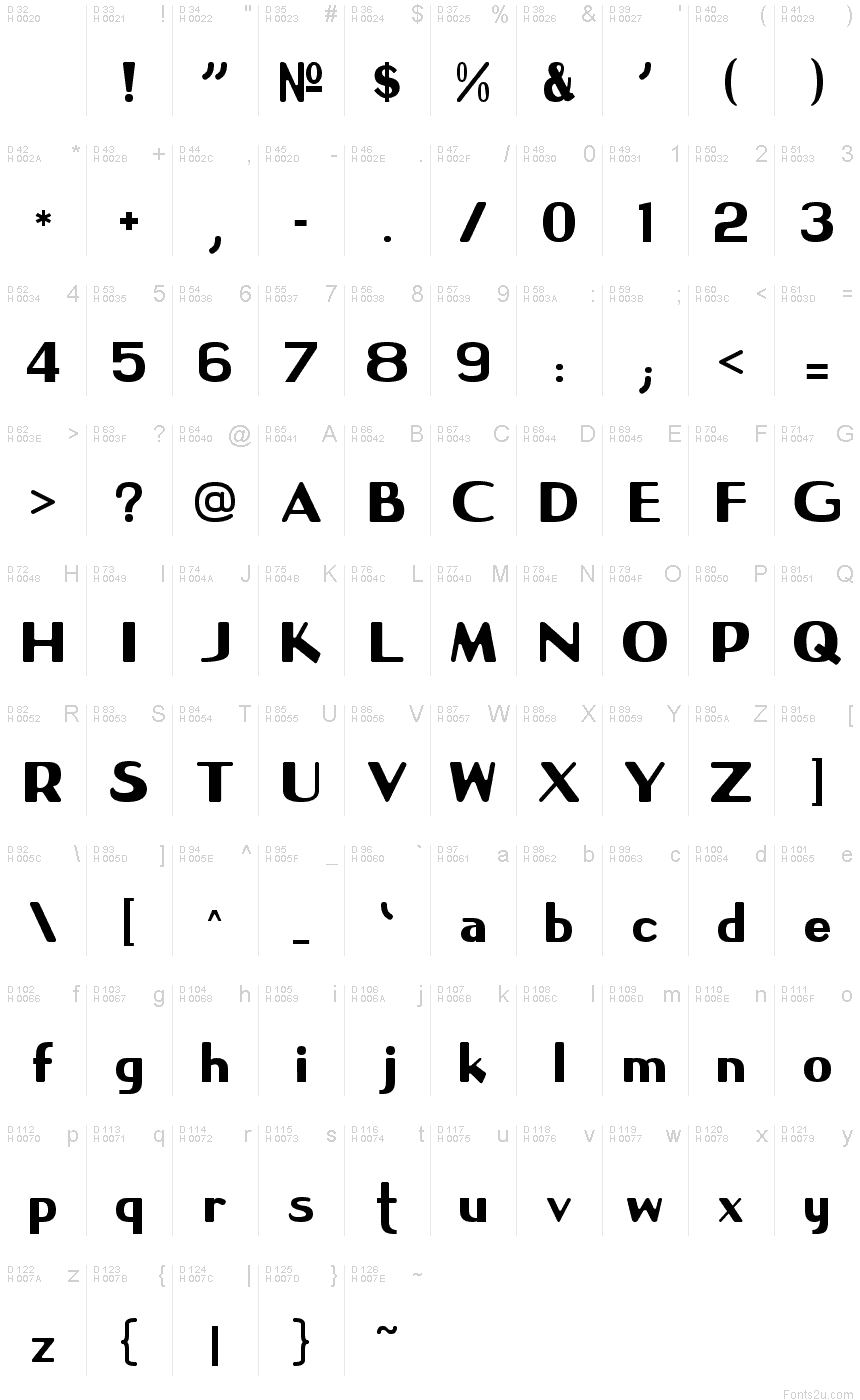
NPS Signage 1945 by E. V. Norat II is a free retro display sans based on sturdy mid-century sign lettering. Its broad capitals use near-uniform strokes, compact curves, and softened rectangular forms. The lowercase keeps the same plainspoken weight and open shapes.
Outdoor brands and heritage venues can use it for wayfinding, visitor materials, and merchandise with a practical period voice. It also suits museum graphics and travel posters, especially when the subject involves parks, roads, or public architecture. Against map lines, trail icons, or documentary photography, the lettering reads like part of the signage system rather than a decorative afterthought.
NPS Signage 1945
This font is similar to, but not an exact replica of, an Art Deco font type used on numerous signs in national parks from circa 1916 to the present.
E. V. Norat II
This font is similar, but not exact replica of an art deco type of font that is used on numerous signs/signage within national parks. Circa 1916 to today.